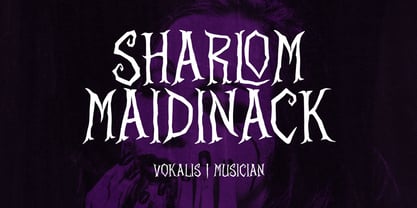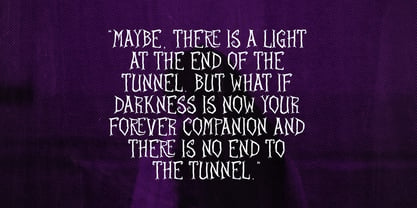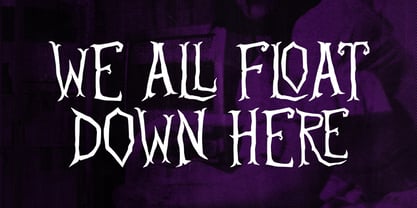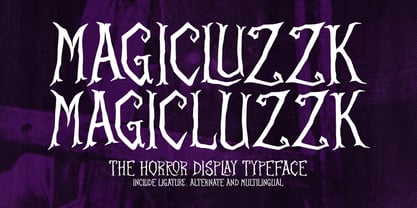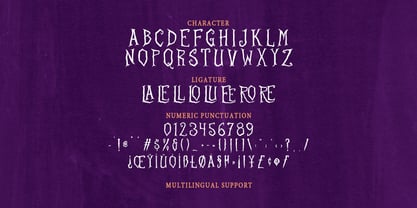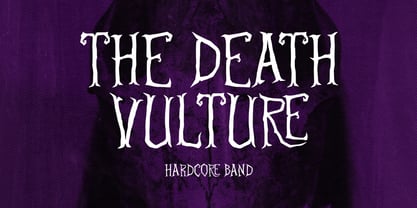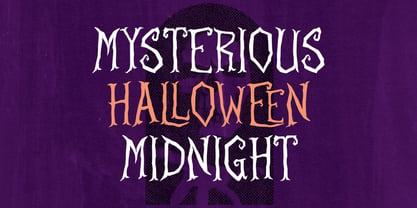
MC Magicluzzk
von Maulana Creative
Die Schriftfamilie MC Magicluzzk wurde von Gilang Maulana entworfen und von Maulana Creative veröffentlicht. MC Magicluzzk enthält 1 Stile. Mehr über diese Familie
Magicluzzk is a haunting, evocative display typeface designed to instantly inject a dose of authentic Gothic horror into your projects. Inspired by classic monster movies, vintage Halloween, and the chilling aesthetics of the underground music scene, this font screams dark, mysterious, and unforgettable. Perfect for: - Band Logos and Album Art: Especially for metal, hardcore, punk, and rock genres. - Halloween & Horror Promotions: Invitations and seasonal advertising. - Chilling Quotes & Book: Novels, poetry, and dramatic titles. - Gaming Graphics: Titles, logos, and environmental text for horror games.
Designer: Gilang Maulana
Foundry: Maulana Creative